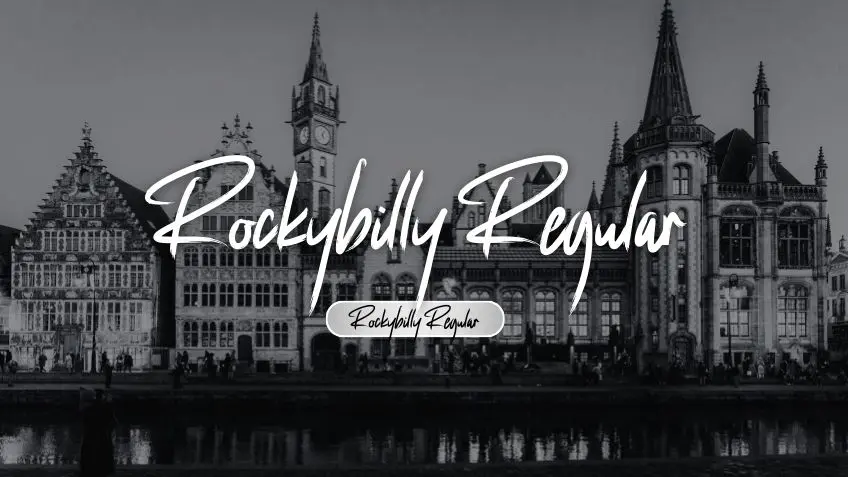
The font Rockybilly Regular, designed by Thomas Aradea, falls under the Script category & Rockybilly font family. Its smooth, flowing letterforms make it a versatile choice for projects that require both elegance and readability. Rockybilly is particularly well-suited for Advertising, Social Media, Creative and Personal Projects, Branding and Logos, T-shirt and Apparel Design, Greeting cards, invitations and and posters. With its balance of simplicity and decorative appeal, this font brings a polished touch to both personal and professional designs.